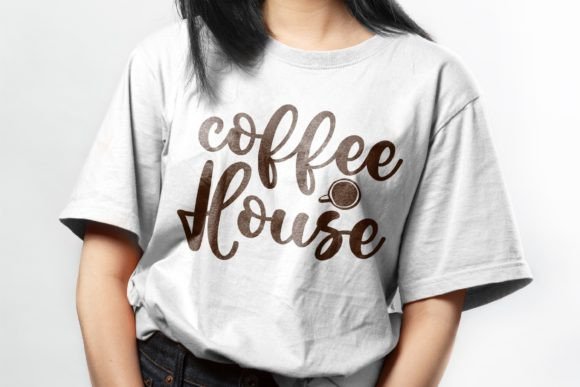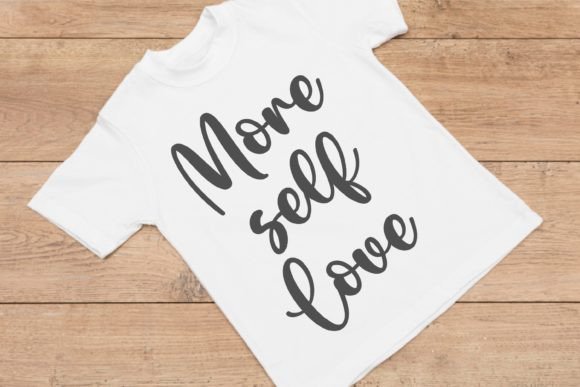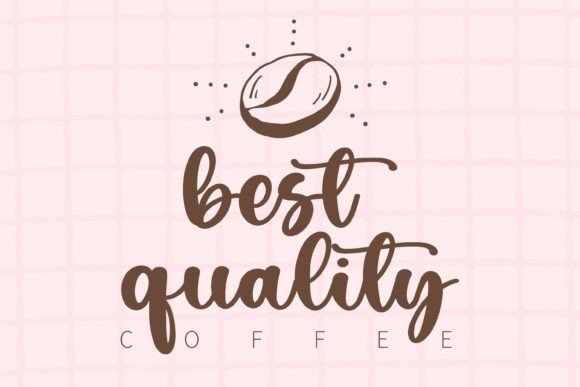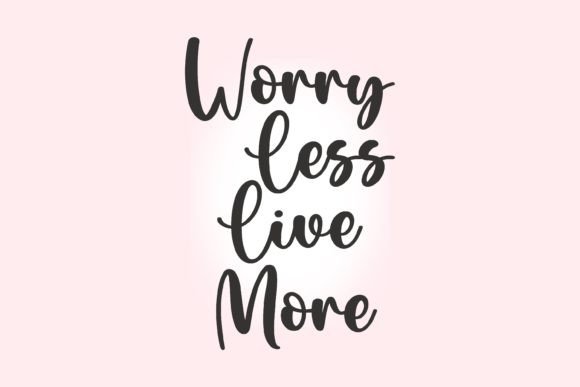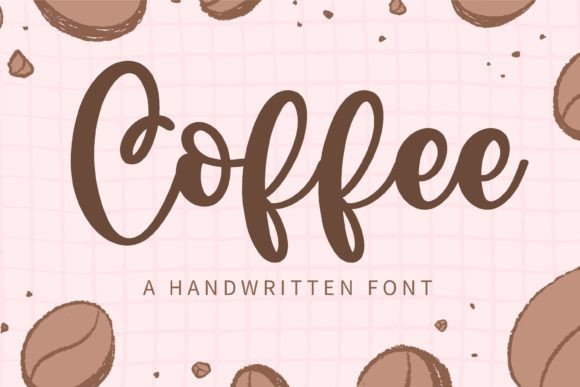
Coffee Font: The Sweet and Cute Handwritten Font for Your Creative Projects
Are you a designer or crafter looking for a font that can add a touch of sweetness and cuteness to your creative projects? Look no further than the Coffee Font! This incredibly versatile handwritten font is perfect for creating gorgeous wedding invitations, beautiful stationary art, eye-catching social media posts, and much more.
What is Coffee Font?
Coffee Font is a modern handwritten font that is designed to bring a sense of warmth and coziness to your designs. Its sweet and cute style is perfect for projects that require a personal touch, such as wedding invitations, greeting cards, and social media graphics. The font is highly legible and can be used in a variety of contexts, from digital to print.
Features of Coffee Font
- Incredibly versatile: Coffee Font can be used in a wide range of creative projects, from wedding invitations to social media posts.
- Sweet and cute style: The font’s sweet and cute style is perfect for adding a touch of warmth and coziness to your designs.
- Highly legible: Coffee Font is designed to be highly legible, making it perfect for use in digital and print contexts.
Uses of Coffee Font
Coffee Font is a versatile font that can be used in a wide range of creative projects, including:
- Wedding invitations: Create beautiful and unique wedding invitations that will set the tone for the big day.
- Stationary art: Use Coffee Font to create beautiful stationary art, such as greeting cards, gift tags, and journal pages.
- Social media posts: Add a touch of sweetness and cuteness to your social media posts with Coffee Font.
- Branding: Use Coffee Font to create a unique and recognizable brand identity for your business.
Tips for Using Coffee Font
Here are a few tips for using Coffee Font in your creative projects:
- Pair with other fonts: Coffee Font pairs well with other fonts, such as sans-serif fonts and script fonts.
- Experiment with colors: Coffee Font looks great in a variety of colors, from bright and bold to soft and pastel.
- Use in combination with graphics: Coffee Font looks great when used in combination with graphics, such as illustrations and photographs.
Coffee Font is a sweet and cute handwritten font that is perfect for designers and crafters looking to add a touch of warmth and coziness to their creative projects. Its incredibly versatile style makes it perfect for use in a wide range of contexts, from wedding invitations to social media posts. With its highly legible design and easy-to-use format, Coffee Font is a must-have for any designer or crafter looking to create beautiful and unique designs.